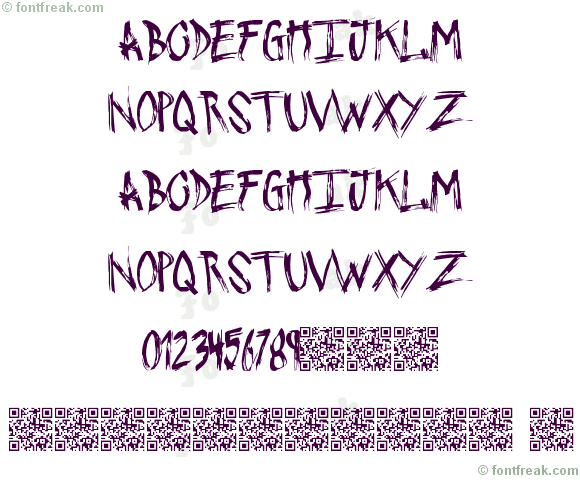
PushingSticks
PushingSticks by XEROGRAPHER FONTS is a captivating display font that exudes a unique artistic flair, perfect for any creative project. This font falls into the decorative category, characterized by its playful and energetic strokes that resemble hand-drawn elements. The uneven stroke weights and dynamic spacing contribute to a lively aesthetic, making it visually engaging and distinct.
The PushingSticks font showcases a raw, organic feel, with its irregular shapes and slightly chaotic lines that evoke a sense of spontaneity. This makes it suitable for a variety of applications, particularly in contexts where a fun, informal vibe is desired. It is an excellent choice for designing eye-catching movie posters that aim to convey excitement and creativity. Additionally, it lends itself well to vibrant restaurant menus, where the aim is to attract attention and stimulate appetite. Wedding invitations can also benefit from its whimsical charm, appealing to couples looking to inject personality into their special day. Furthermore, PushingSticks is ideal for social media graphics, allowing content creators to stand out in a crowded digital landscape.